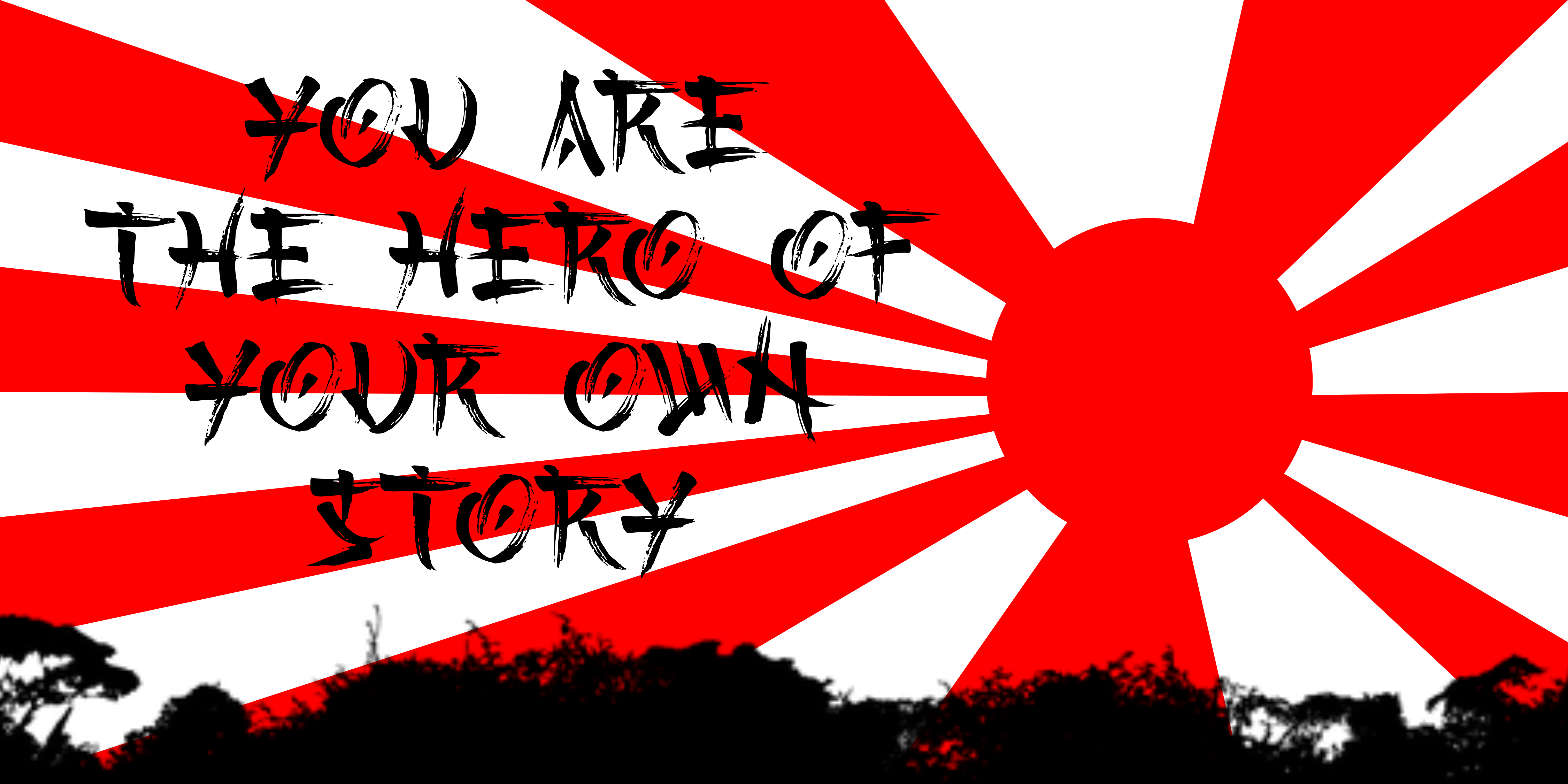
Kashima Brush Font is perfect for Japanese restaurant branding, martial arts studio signage, zen meditation centers, traditional tea house identities, Asian calligraphy workshops, sushi bar marketing, Japanese cultural events, and authentic Eastern artistic expressions.
Kashima Brush Font is exciting because it captures the meditative grace and artistic mastery of Japanese brush calligraphy through its flowing character design that embodies the spiritual discipline of traditional shodō and the serene beauty of Eastern artistic philosophy. Its brush styling and cultural appeal make it the perfect choice for brands that want to communicate tranquility, tradition, and the transformative power of Japanese aesthetic principles.
Kashima Brush Font family includes multiple Japanese-inspired variations: Kashima Brush Regular, Kashima Brush Bold, Kashima Brush Light, Kashima Brush Zen, Kashima Brush Traditional, and Kashima Brush Master, along with Japanese decorative elements and Eastern symbols, providing designers with comprehensive tools for creating authentic Japanese and Eastern-themed brand experiences.
When exploring Japanese calligraphy typography solutions, Kashima Brush Font Free Download emerges as the ultimate choice for designers working on Japanese cultural and Eastern aesthetic projects that require genuine calligraphic sophistication and traditional appeal. This serene typeface embodies the essence of Japanese artistry while offering the versatility needed for modern Japanese hospitality marketing and Eastern cultural communications. The font's meditative character and Japanese resonance create immediate connections with audiences who appreciate Eastern philosophy and traditional Japanese culture.
Japanese cultural professionals consistently turn to Kashima Brush Font for projects requiring authentic Japanese sophistication and powerful traditional appeal. Its carefully crafted letterforms feature brush-inspired influences that work exceptionally well in both large-scale Japanese cultural center displays and intimate tea ceremony materials. The font's ability to convey serenity and Japanese authenticity while maintaining strong brand recognition makes it invaluable for comprehensive identity systems in the Japanese hospitality, Eastern wellness, and traditional Japanese experience sectors.
Whether you're developing Japanese restaurant identities, creating Eastern cultural marketing materials, or designing traditional Japanese event promotions, Kashima Brush Font delivers the authentic Japanese character and calligraphic appeal that resonates with audiences who cherish Japanese traditions and Eastern aesthetic principles. Its cultural significance and brush-inspired design ensure your projects capture the meditative beauty of Japanese calligraphy while maintaining contemporary professional standards that attract modern Eastern culture enthusiasts and Japanese tradition appreciation supporters.